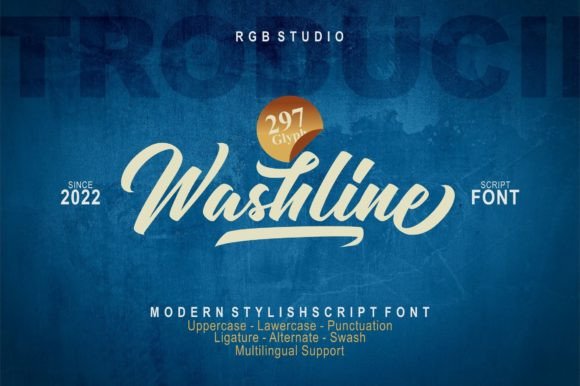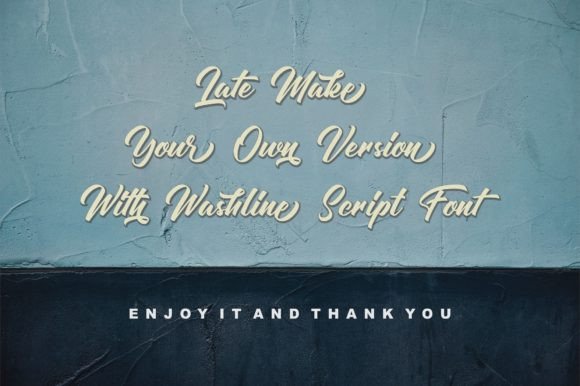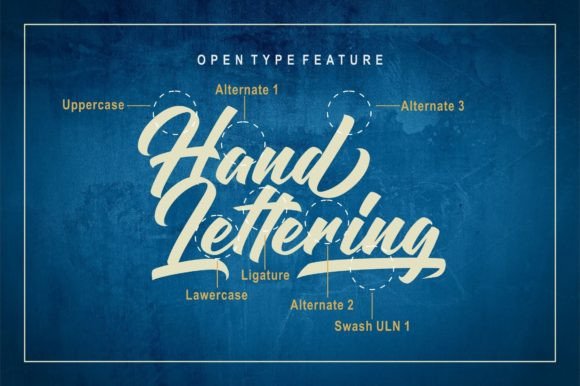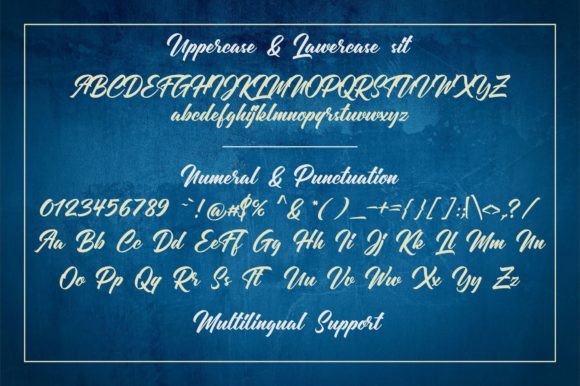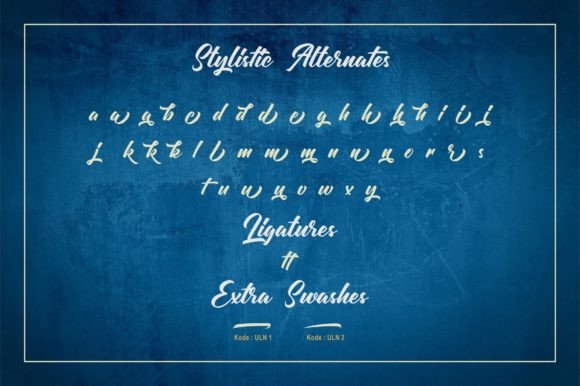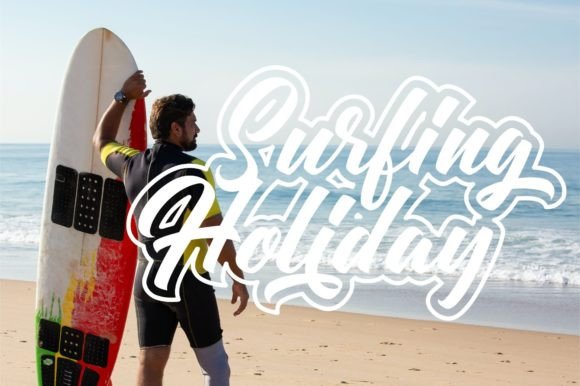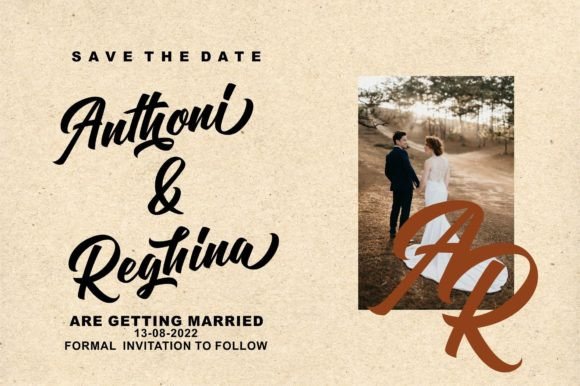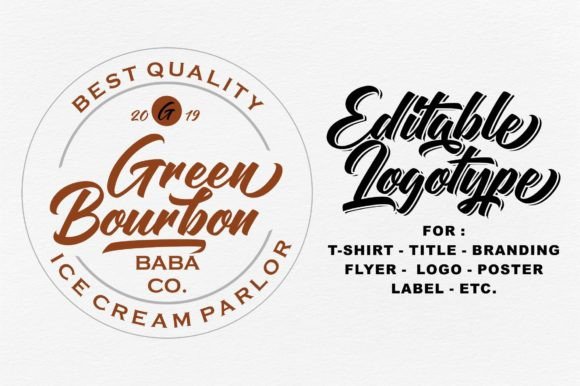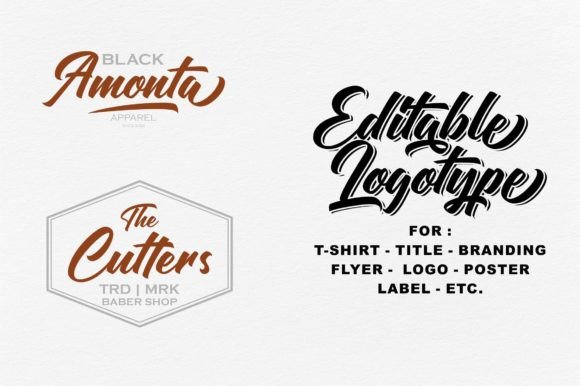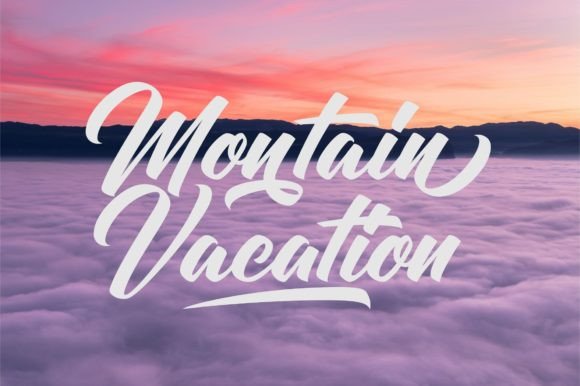
Washline Font
About Washline Font
Washline, a dazzling handwritten font, emerges as a modern and versatile typeface with a broad spectrum of applications. This font’s dynamic and contemporary style makes it suitable for a diverse range of creative projects, including branding, logotypes, events, product packaging, decorations, T-shirts, posters, labels, and beyond. Integrate Washline into your creative endeavors, and watch as it captivates everyone’s attention with its distinctive charm.
The modernity of Washline positions it as a go-to choice for branding and logotypes, where its bold strokes and unique character contribute to a memorable and impactful visual identity. Its versatility extends to various events, allowing it to be the perfect choice for promotional materials, invitations, and signage that demand a fresh and eye-catching design.
In the realm of product packaging and decorations, Washline adds a touch of flair and creativity. The font’s dynamic nature makes it well-suited for T-shirts, posters, and labels, injecting a sense of vibrancy that can elevate the overall aesthetic of your merchandise. Its ability to adapt to different mediums ensures that Washline seamlessly integrates into your design toolkit.
The captivating nature of Washline isn’t just limited to specific applications; it has the power to enhance a wide array of creative projects. Whether you’re working on digital designs or tangible print materials, Washline promises to be a standout element that draws attention and leaves a lasting impression.
Incorporate Washline into your creative arsenal, and let its dazzling handwritten style bring a fresh and contemporary vibe to your designs. From promotional materials to product branding, Washline is poised to make your creative projects shine and stand out in any context.